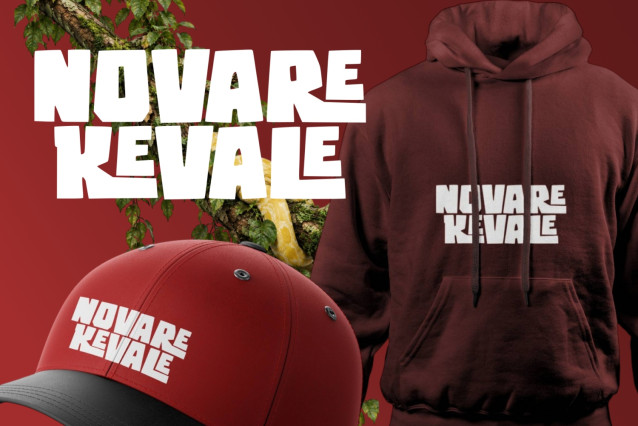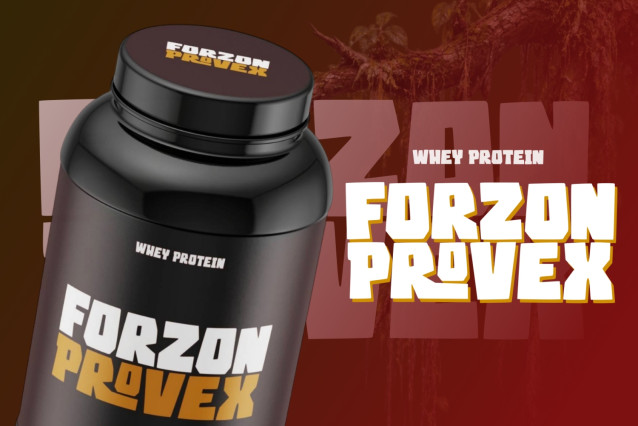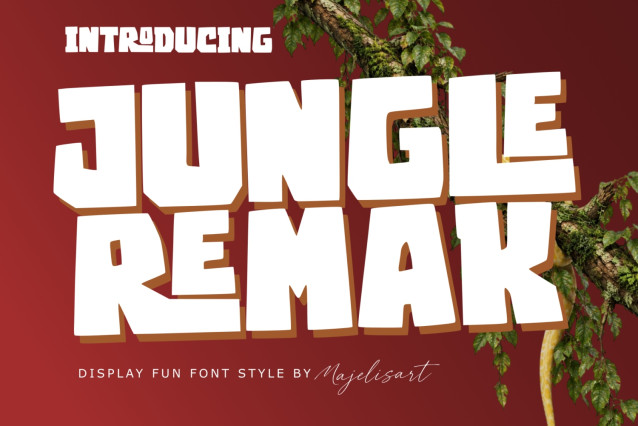
Jungle Remak – Display Font
Jungle Remak — Display Fun Font
Introducing Jungle Remak, a bold and powerful display typeface inspired by the wild, raw, and adventurous character of the jungle.
Featuring heavy blocky letterforms, sharp cuts, irregular details, and a strong rugged appearance, Jungle Remak gives your designs an energetic and fearless personality. Its bold structure makes it highly effective for large headlines and eye-catching display artwork.